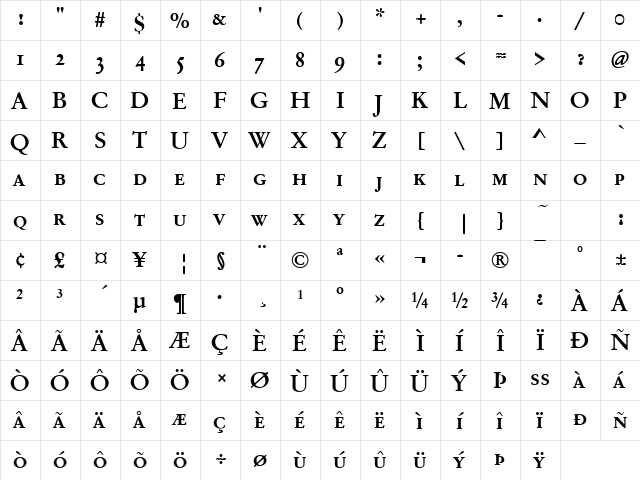
Garamond Becker No2 Caps Med Regular
Design Context for Garamond Becker No2 Caps Med Typeface
Garamond Becker No2 Caps Med offers clean, dependable letterforms without strong stylistic allegiance, making it a practical choice for designers who need flexibility.